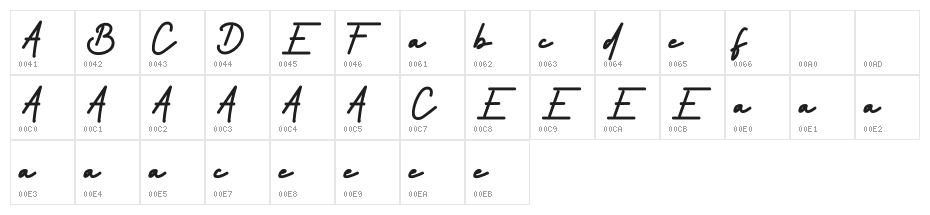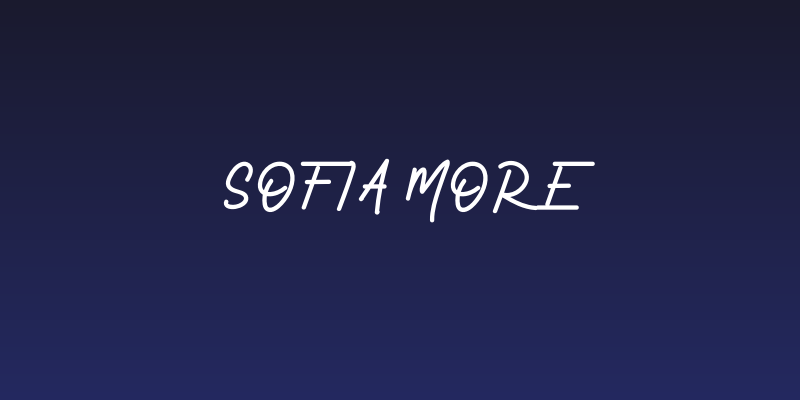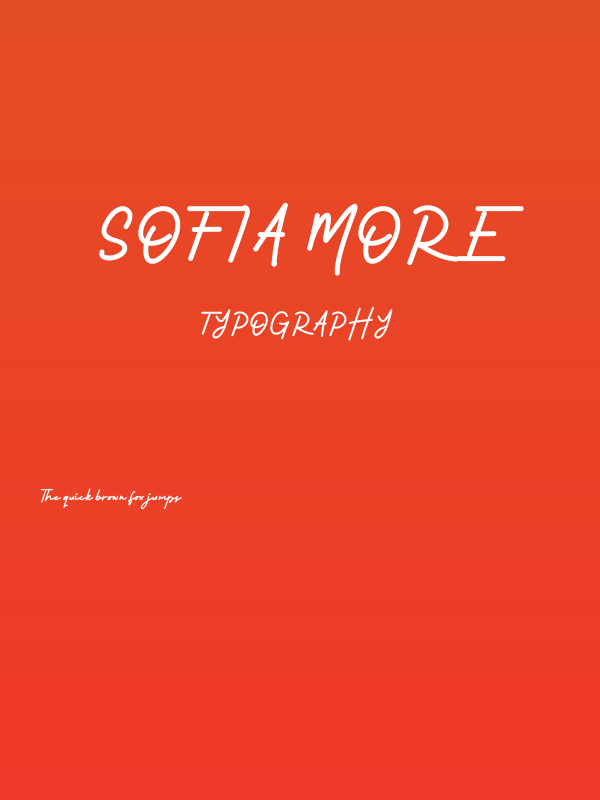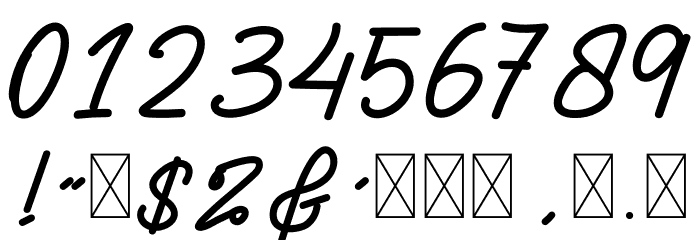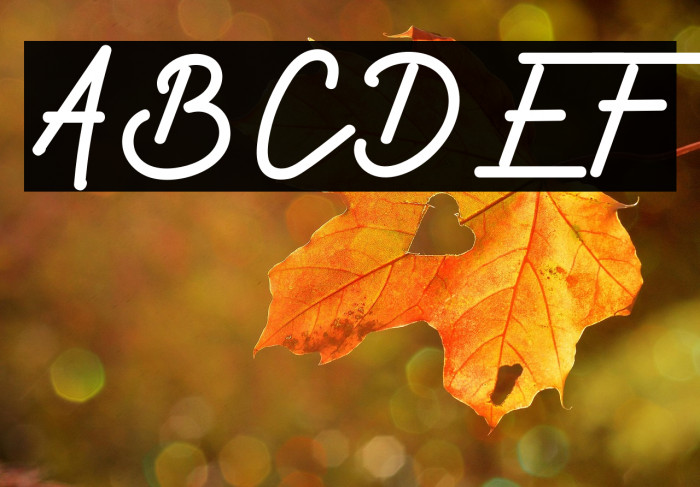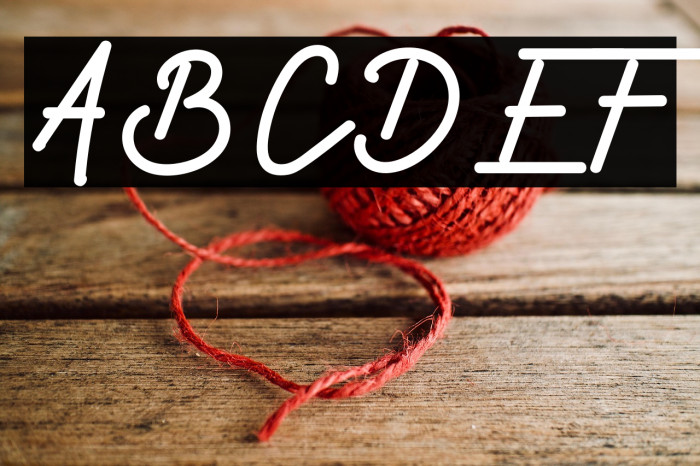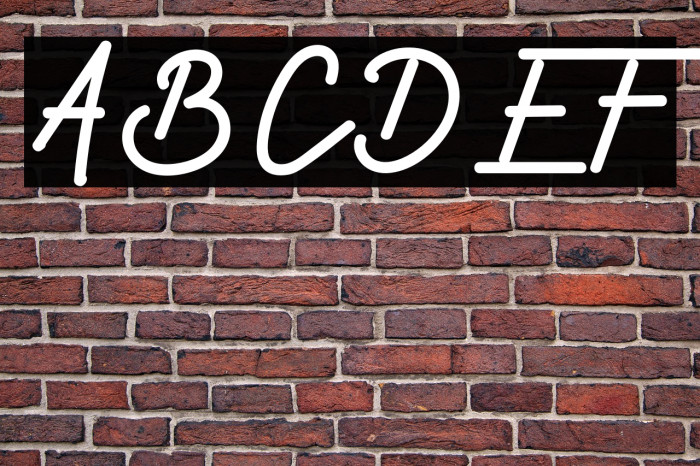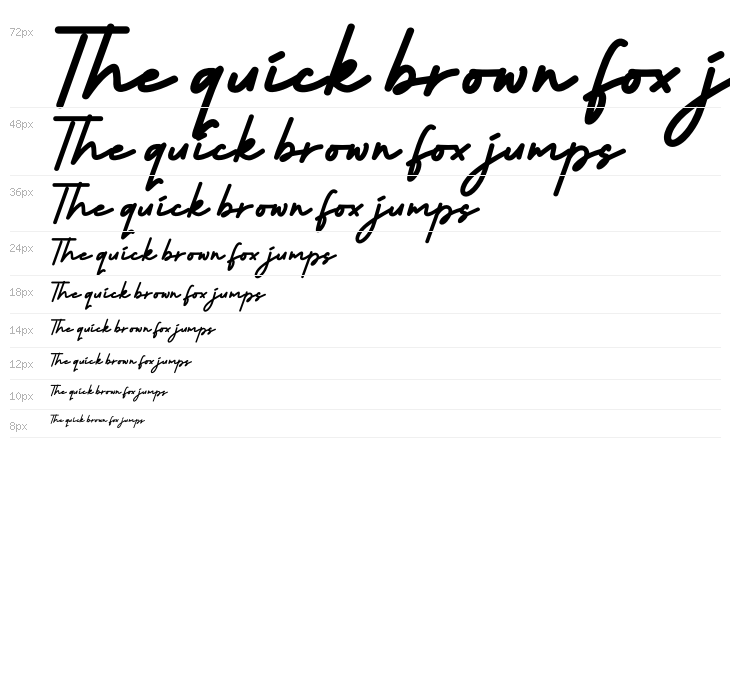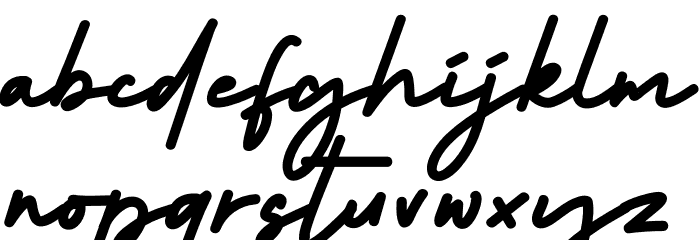
Sofia More Font
Sofia More Description
This font features a lively and dynamic script style with a handwritten appearance. The uppercase letters are elegantly slanted, giving a sense of motion and fluidity. The lowercase letters maintain a consistent flow, with smooth curves and loops that enhance its casual yet sophisticated look. The numerals are clear and legible, matching the overall style with slight variations in stroke thickness. Special characters are integrated seamlessly, maintaining the font's cohesive aesthetic. This font exudes a playful yet refined personality, making it suitable for a variety of creative applications.